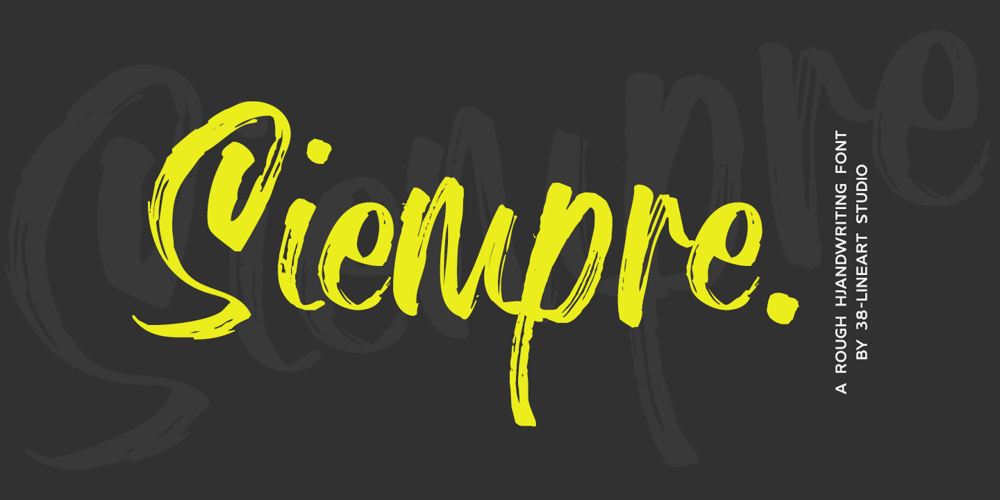
Siempre
Siempre font
Siempre Font Family was designed by Muhammad Ridha Agusni and published by 38-lineart. Siempre contains 1 styles and family package options. Introducing the Siempre Font.The Siempre font is a distinctive typeface created with the bold strokes of an ink pen. Its rough and raw aesthetics give it a unique and memorable character. This font exudes a powerful impression that makes it the perfect choice for brands, logos, and promotions, ensuring that people will always remember your message.